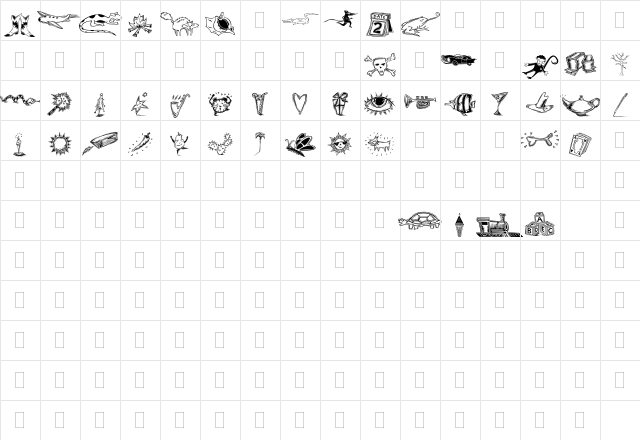
DF Inspirations Two Plain Free Font
DF Inspirations Two Plain
Complete DF Inspirations Two Plain glyph index. Displaying only characters natively supported by DF Inspirations Two Plain font.
Design Context for DF Inspirations Two
DF Inspirations Two is a composed and adaptable typeface that performs quietly and consistently across a wide range of design contexts.